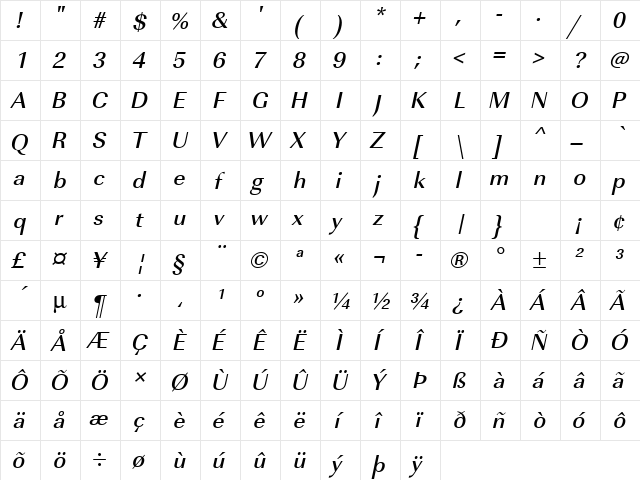
URWImperialTMed Oblique
Design Context for URWImperialTMed Typeface
URWImperialTMed takes a measured approach to typography — its balanced proportions and neutral character make it a reliable workhorse for both digital and print work. The slanted form adds forward momentum and visual energy.
Pro Tip: Try URWImperialTMed for annotation and caption copy alongside an upright companion — the contrast in angle creates a dynamic but ordered typographic system.